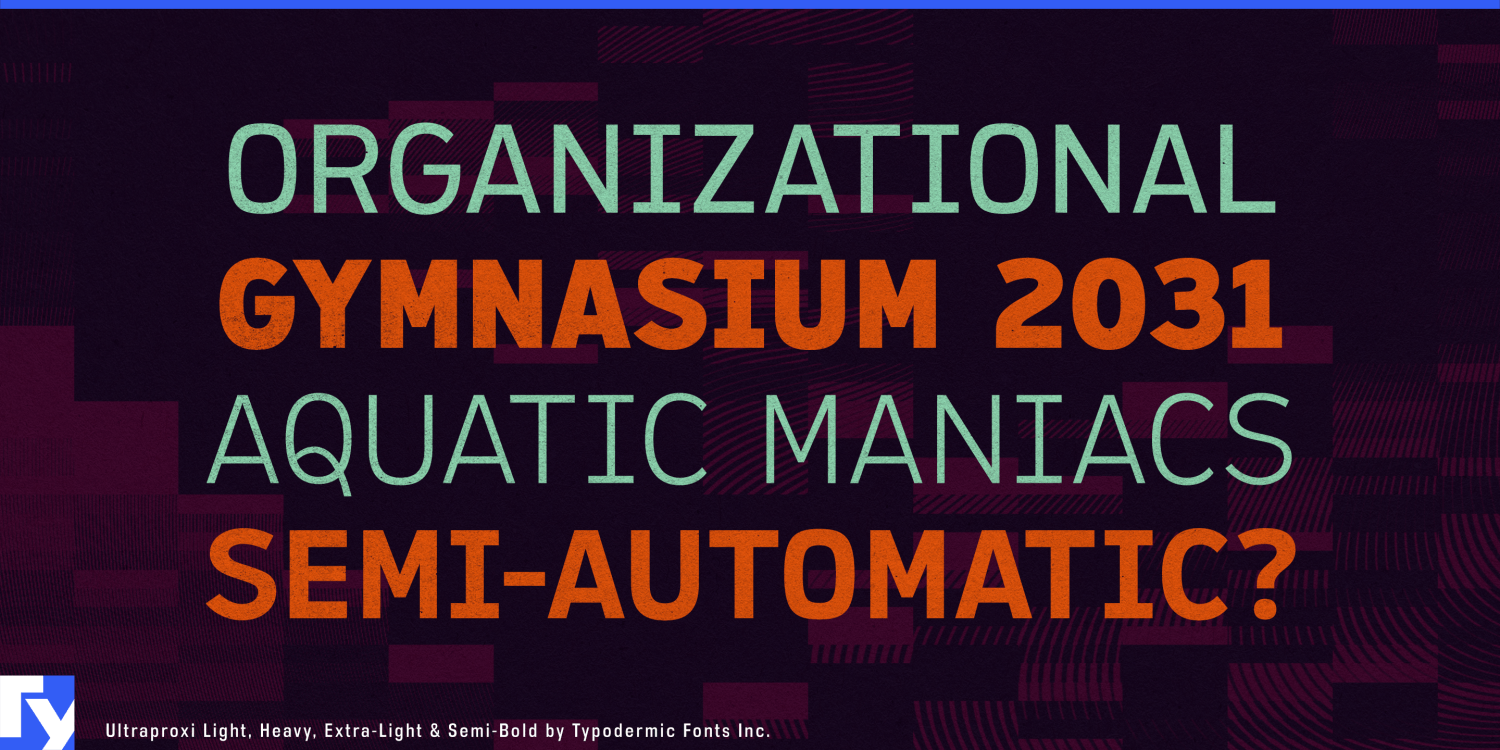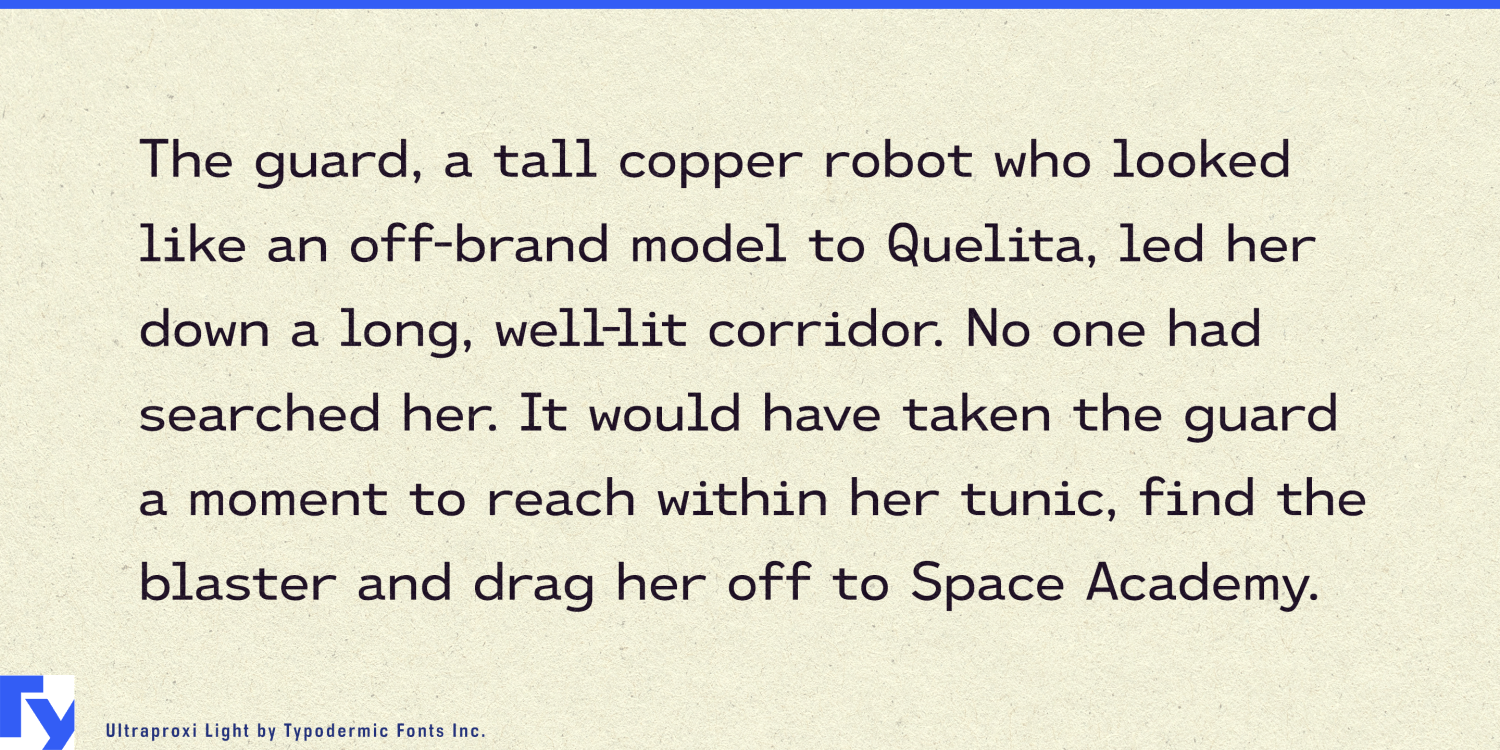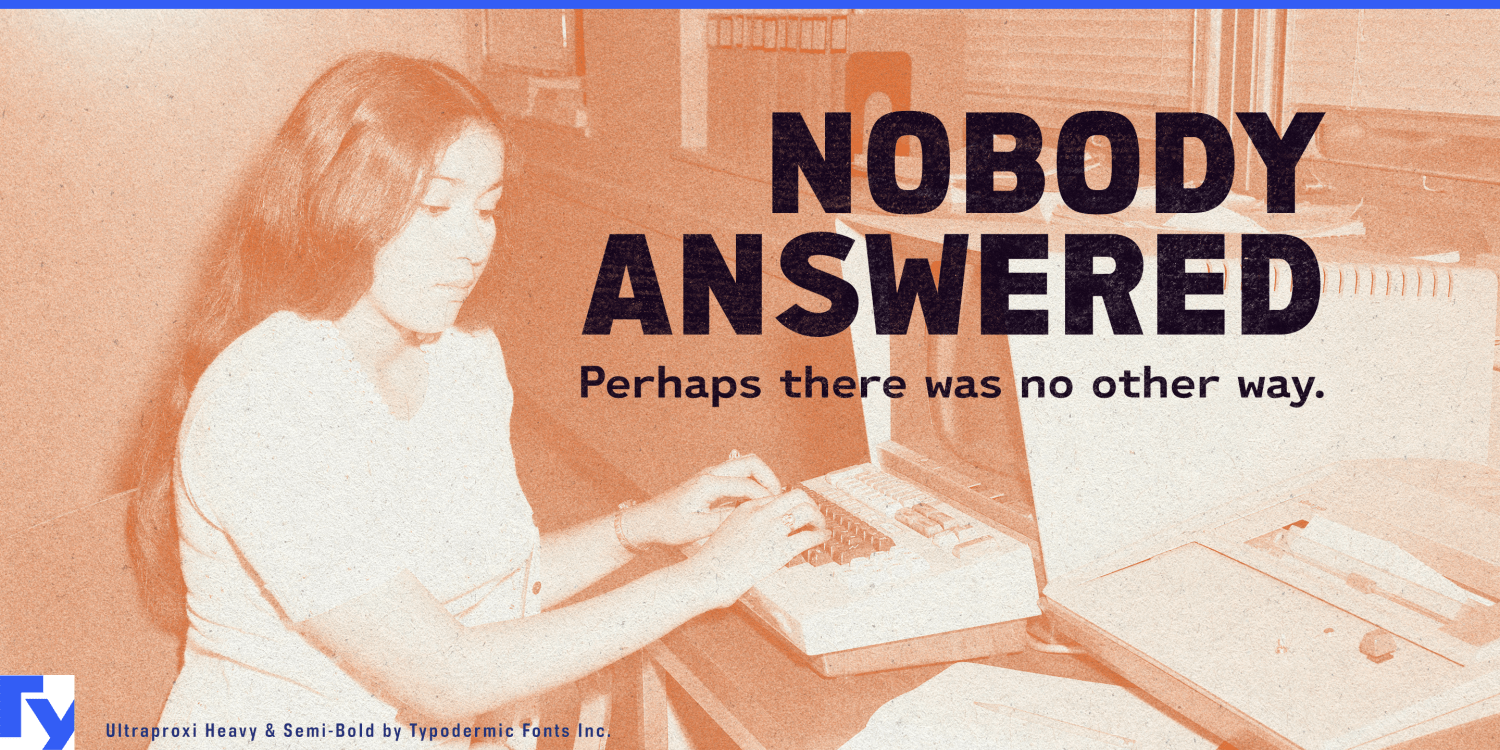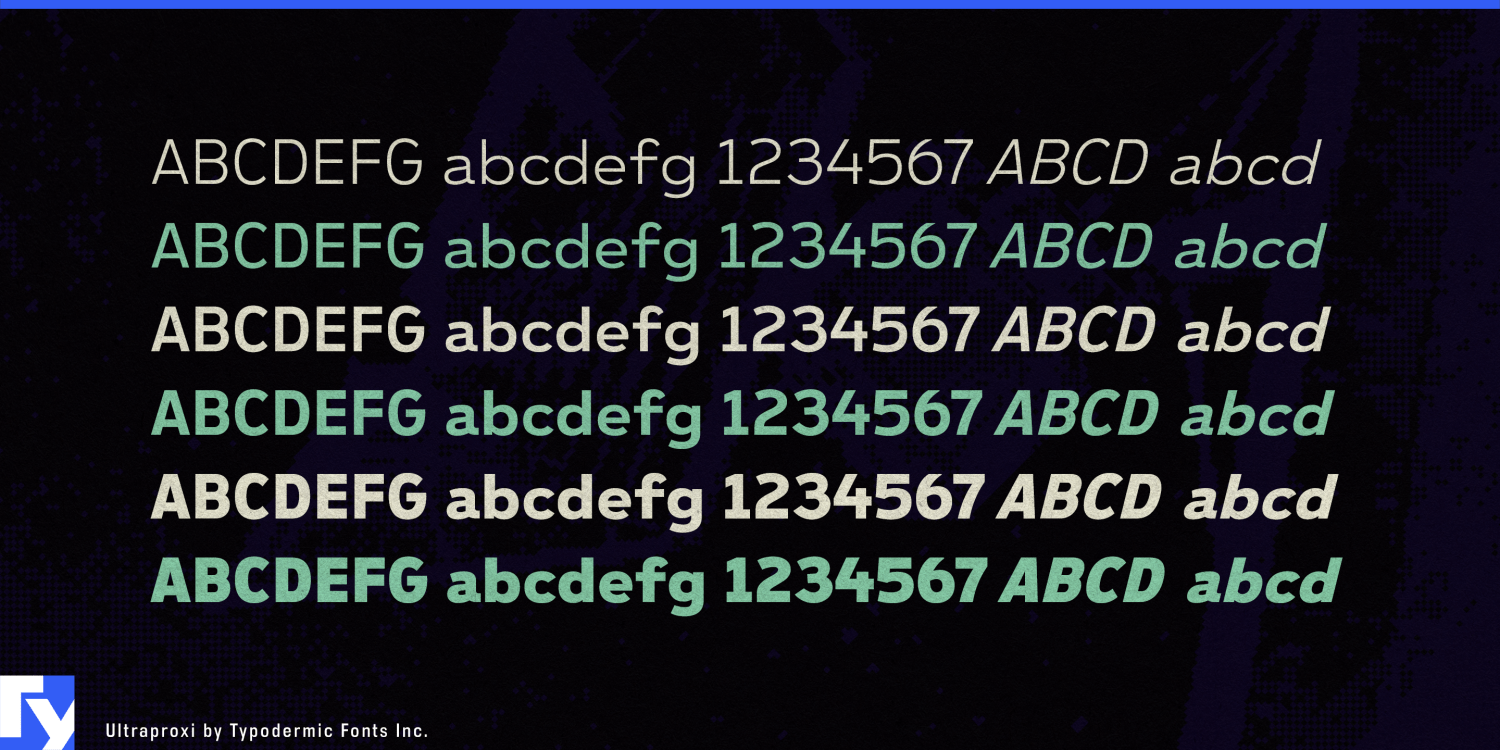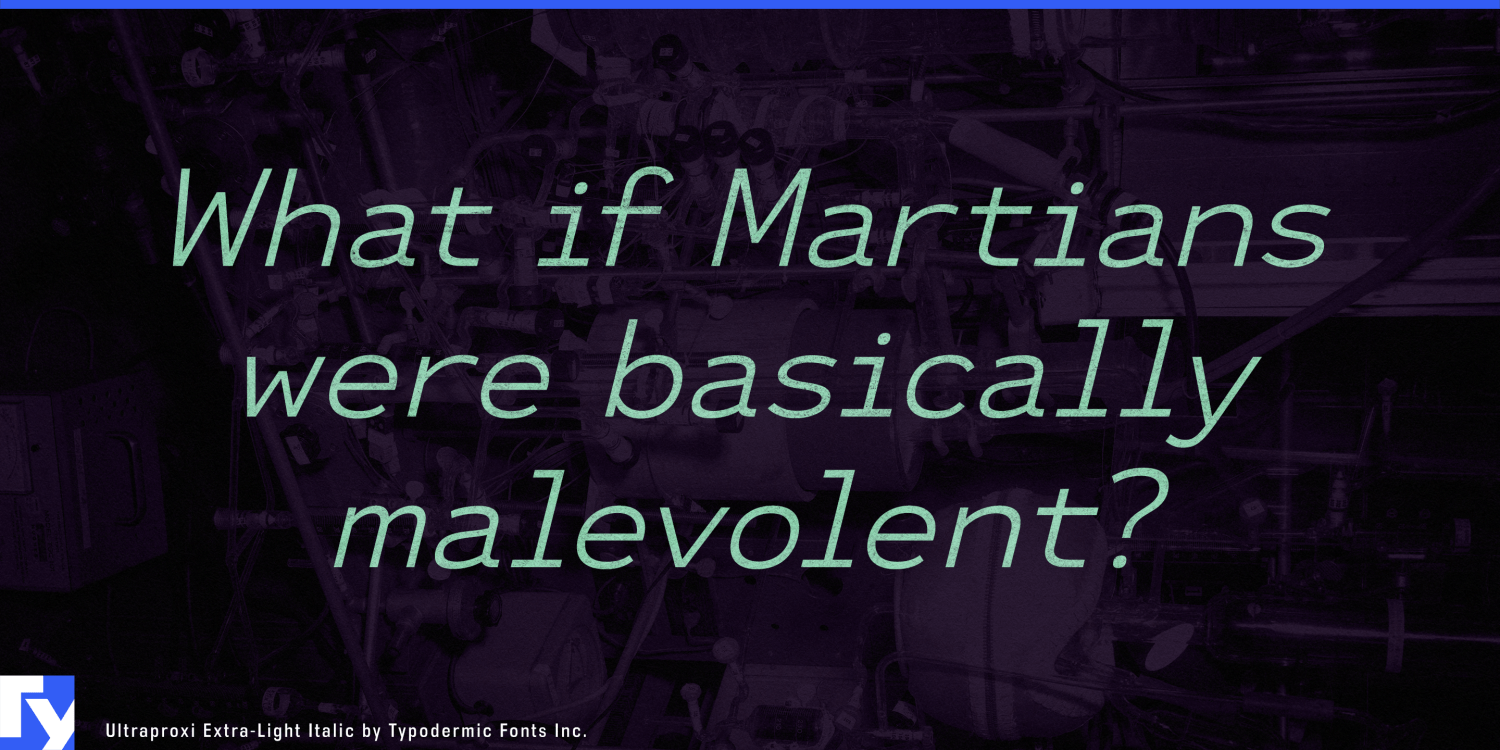
About Ultraproxi
Ultraproxi: a typeface that hums with the electric precision of a bygone technological era. Like the rhythmic whir of the IBM 1403 chain printer that inspired it, this font family resonates with a harmonious blend of nostalgia and cutting-edge design.…